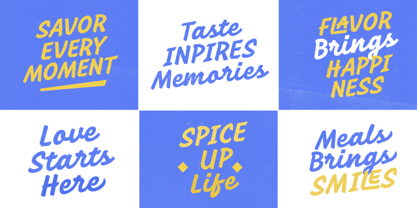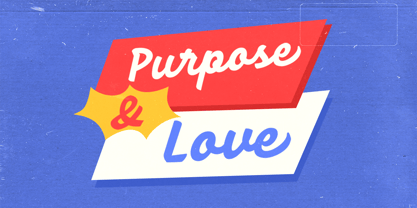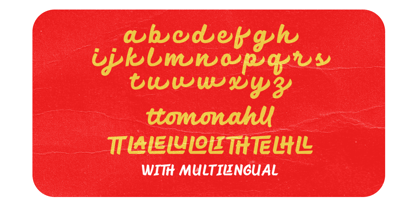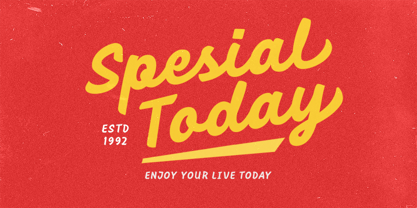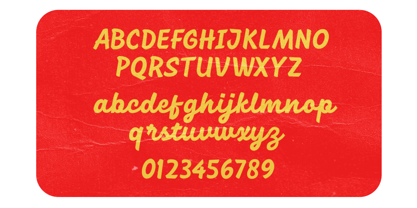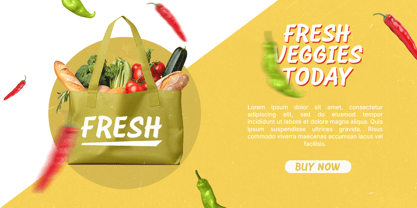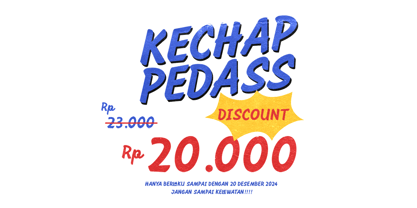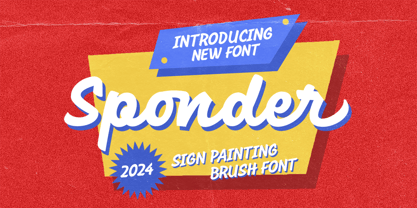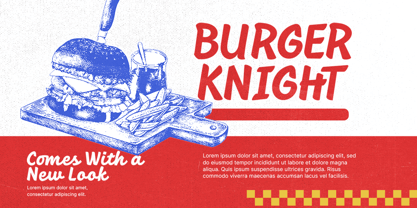
Sponder
by Bale Type
The Sponder Font Family was designed by Sarid Ezra, Dzikrul Aulia and published by Bale Type. Sponder contains 1 styles.
Sponder is a sign painting font with retro and vintage style. With lowercase and uppercase that you can use separately to make quotes and logotype. Also comes with ligatures and alternates that will make your text and designs looks more stunning. You can use this font for any purposes especially for project that needs retro vibes. Sponder also support multilingual.
Sponder